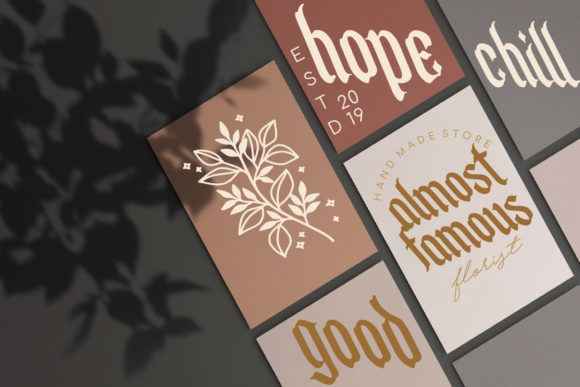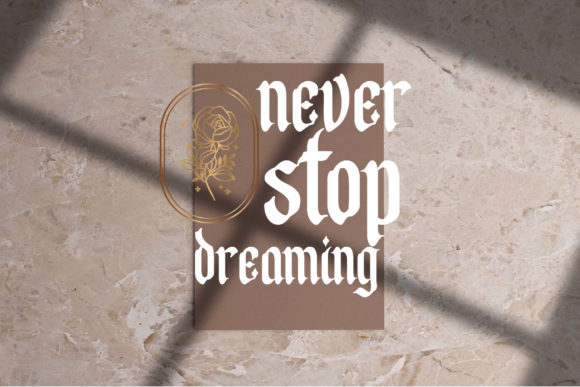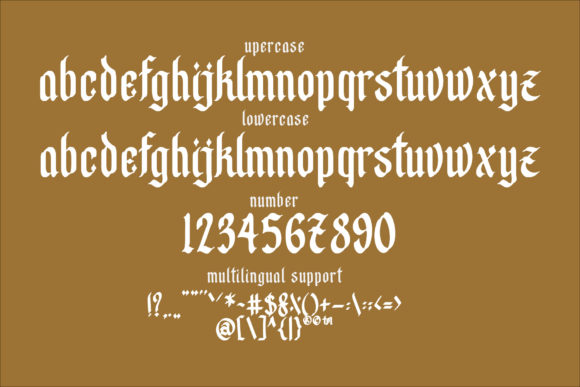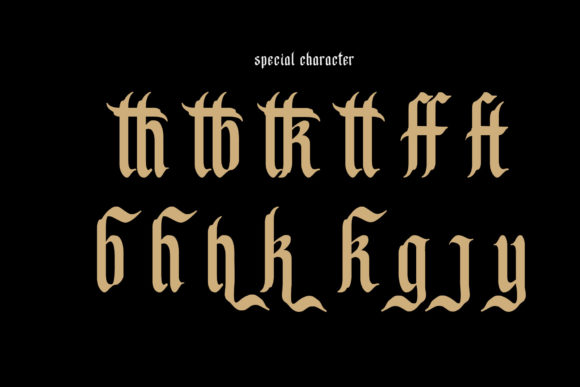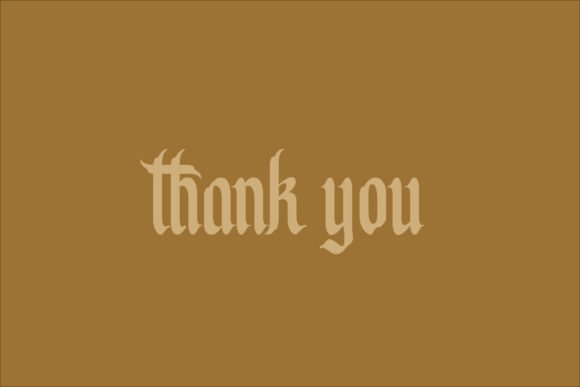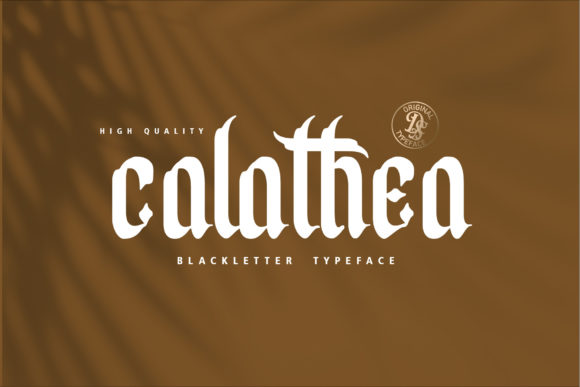
Introducing Calathea Font: Elevate Your Designs with Elegance and Sophistication
Are you tired of using the same old fonts in your design projects? Look no further than Calathea Font, a stunning blackletter font that is sure to take your designs to the next level. With its beautiful, detailed, and elegant style, Calathea Font is the perfect choice for designers and crafters looking to add a touch of sophistication to their work.
The Unique Charm of Calathea Font
Calathea Font is a unique and eye-catching blackletter font that is sure to make your designs stand out from the crowd. Its intricate details and elegant lines make it perfect for a variety of design projects, from wedding invitations and branding materials to packaging and advertising. Whether you’re looking to create a luxurious and high-end feel or a more rustic and vintage look, Calathea Font is the perfect choice.
The only limit to what you can create with Calathea Font is your imagination! This versatile font can be used in a wide range of design projects, including:
- Branding and packaging materials
- Advertising and marketing campaigns
- Digital graphics and social media assets
Whether you’re a professional designer or a crafty DIY enthusiast, Calathea Font is the perfect choice for anyone looking to add a touch of elegance and sophistication to their designs.
Key Features of Calathea Font
So what makes Calathea Font so special? Here are just a few of its key features:
- Beautiful, detailed, and elegant blackletter design
- Unique and eye-catching style that’s sure to stand out
- Versatile and can be used in a wide range of design projects
- Easy to read and understand, even in small sizes
Tips for Using Calathea Font in Your Designs
Here are a few tips for using Calathea Font in your designs:
- Use it as a headline font to add a touch of elegance and sophistication
- Pair it with a simpler font for body text to create contrast and visual interest
- Experiment with different colors and textures to add depth and dimension
- Don’t be afraid to get creative and try out new and unusual design ideas!